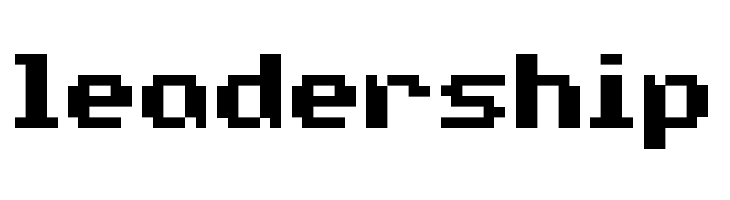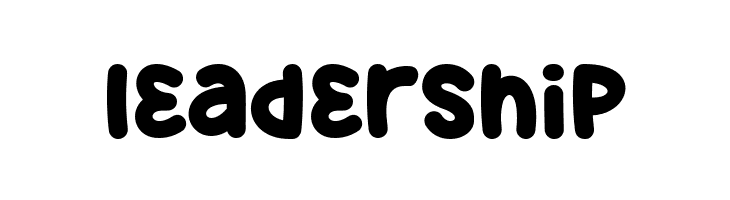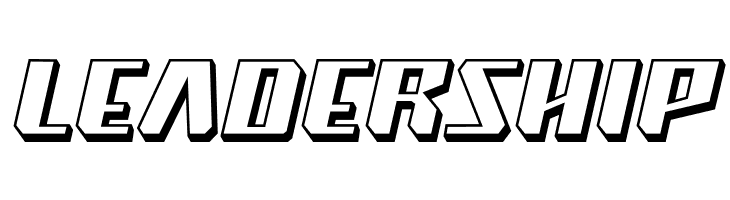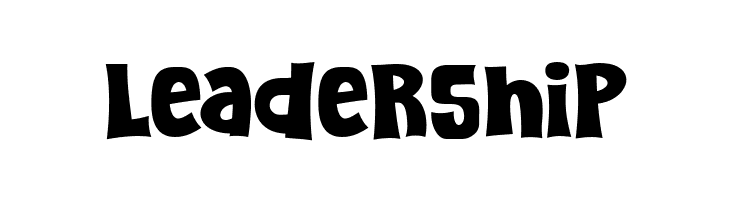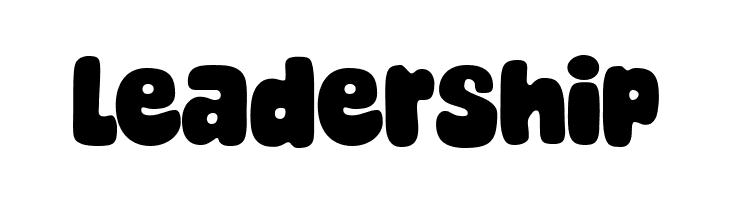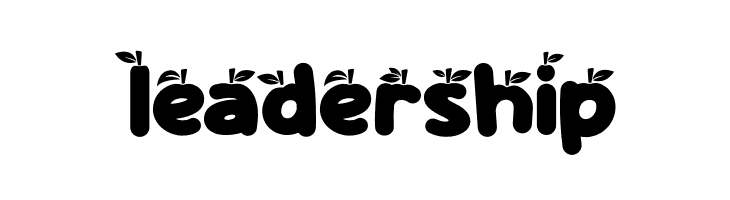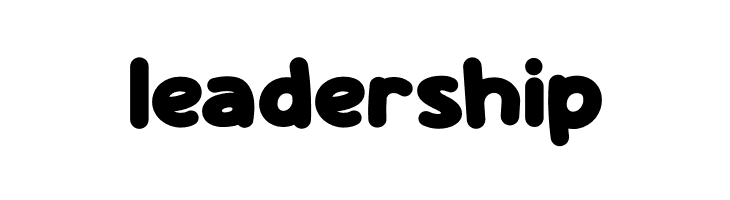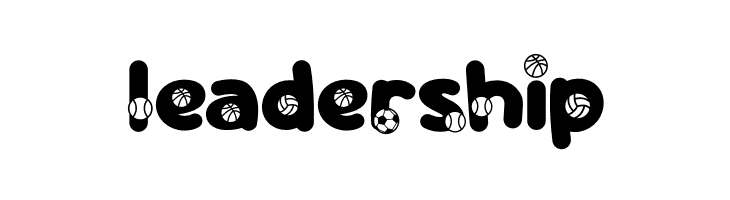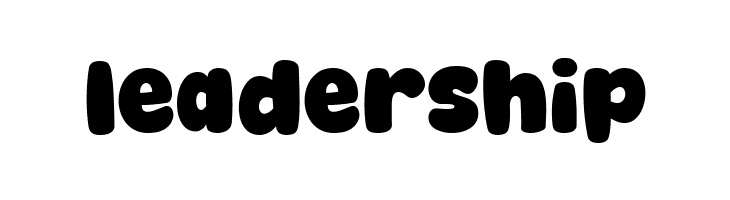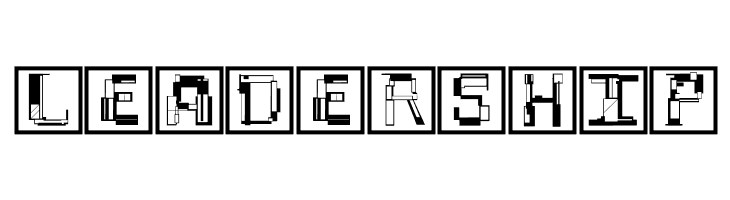
A bold, geometric font with a three-dimensional cube-like design.
A bold, 3D font with a futuristic and dynamic style.
A bold, rounded font with a playful and friendly style.
A bold, playful font with rounded, bubbly characters ideal for creative designs.
A bold, rounded font with a playful and whimsical style.
A bold, pixelated font with a retro video game aesthetic.
A playful, rounded font with a friendly and approachable style.
A playful, bold font with rounded, bubbly characters.
A bold, sporty font with integrated ball motifs for a playful and energetic look.
A playful, bold font with leaf-like accents on each character, perfect for fun and creative projects.
Silhouette-based decorative font with superhero themes.
A bold, futuristic font with a unique striped pattern and geometric design.
A bold, futuristic font with a chrome-like, three-dimensional effect and italic slant.
A bold, italicized font with a dynamic and energetic style.
A futuristic, geometric font with a digital, pixel-like design.
A bold, futuristic font with sharp, angular lines and a geometric style.
A bold, angular font with a dynamic and energetic style.
A futuristic, geometric font with a digital aesthetic.
A modern, geometric font with clean lines and balanced proportions.
A modern, light sans-serif font with geometric shapes and low contrast.
A decorative serif font with playful swirls and bold characters.
A playful, modern font with bold, geometric elements and whimsical curves.
A bold, futuristic font with sharp angles and a dynamic slant.
A bold, pixelated font with a retro, digital aesthetic.
A geometric, abstract font inspired by Suprematism, featuring bold, intersecting shapes.
A bold, geometric font with a digital, abstract aesthetic and fragmented design.
An abstract, geometric font inspired by Suprematism, featuring bold shapes and lines.
An abstract, geometric font inspired by Suprematism, featuring bold, angular shapes.
A geometric, abstract font with circular, artistic designs inspired by Suprematism.
A bold, geometric font with a modern and impactful design.
A whimsical and artistic font with abstract, doodle-like characters.